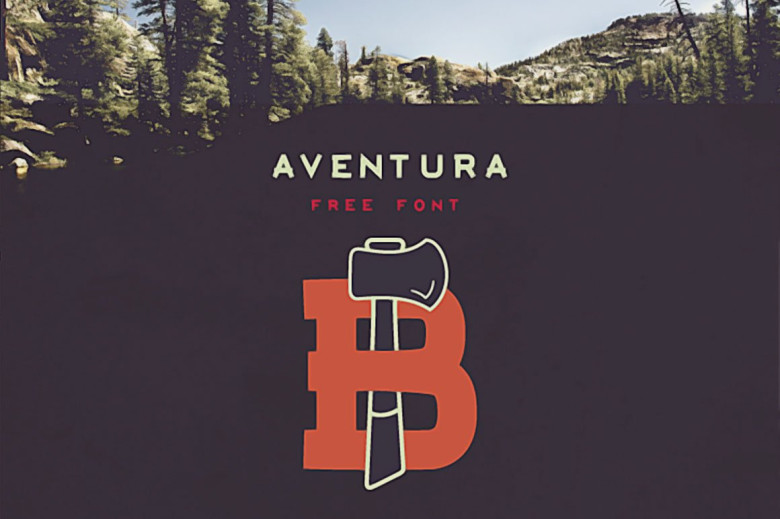
Aventura Typeface
Aventura – Free Bold Font. This cool bold custom font is from Jimmy Kalman. Great for your new retro or vintage projects. Download and enjoy ?